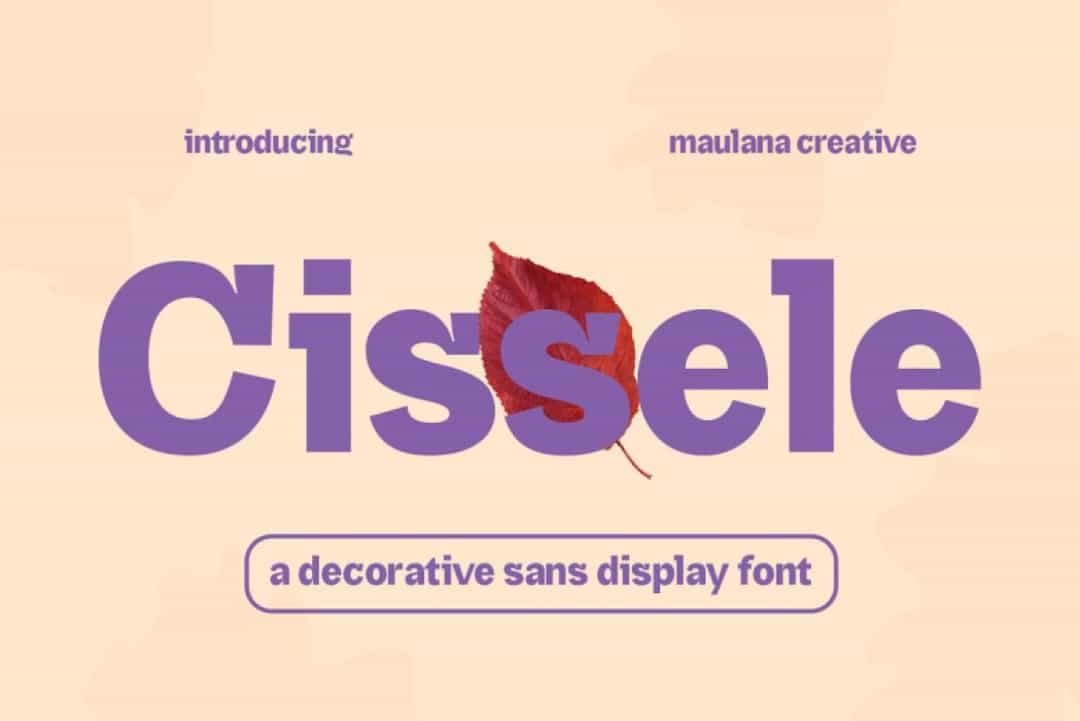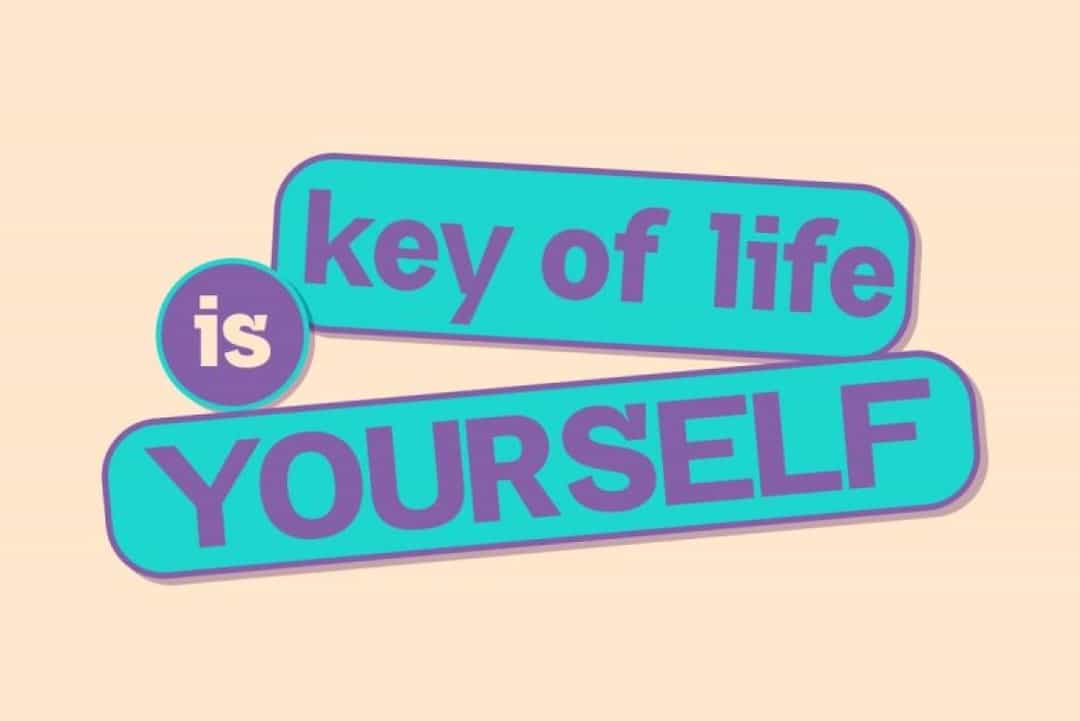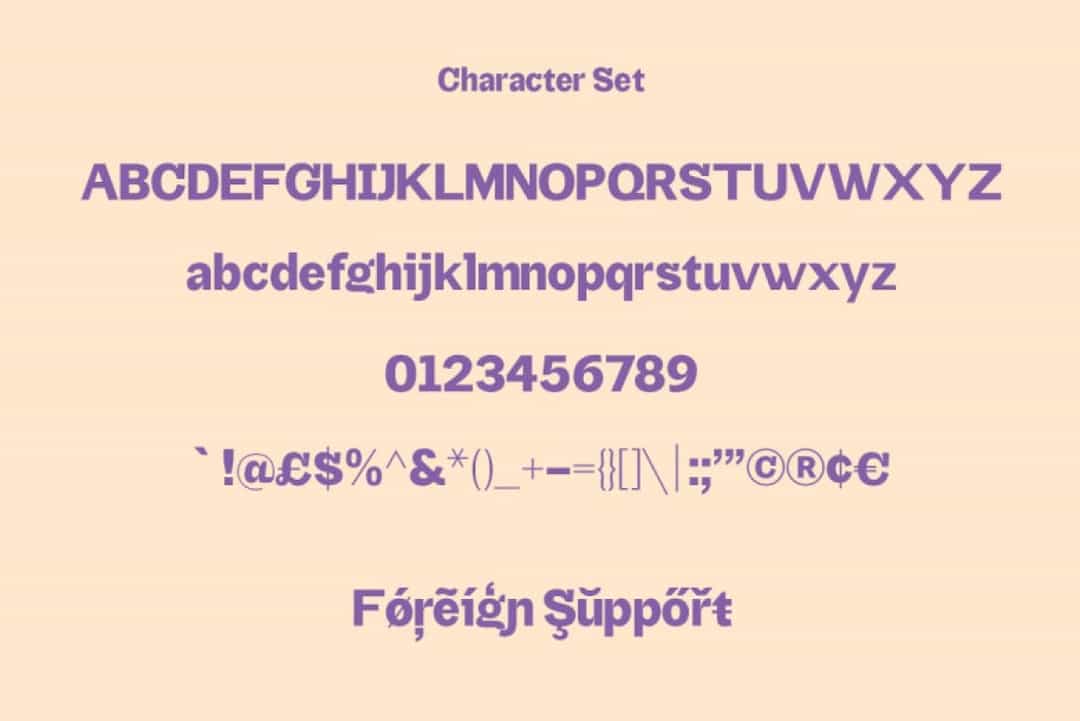
Cissele font is a fun and modern display sans serif font with moderately low contrast strokes, fun characters with some ligatures and alternates, to provide additional artistic work. Cissele font supports over 100 languages for added artistic work!